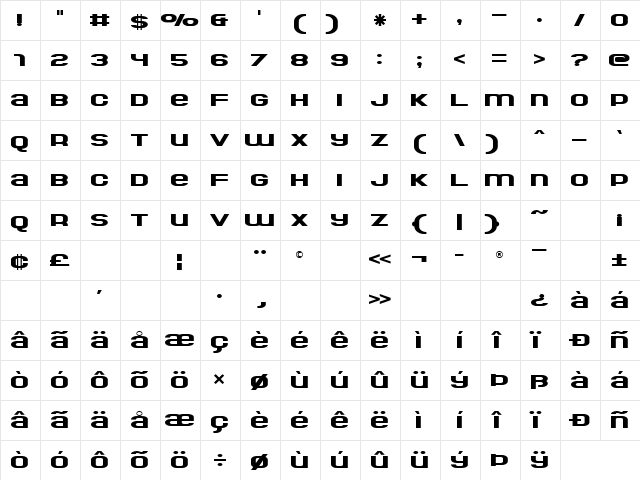
Resurrector Regular
Design Context for Resurrector Typeface
Resurrector offers clean, dependable letterforms without strong stylistic allegiance, making it a practical choice for designers who need flexibility.